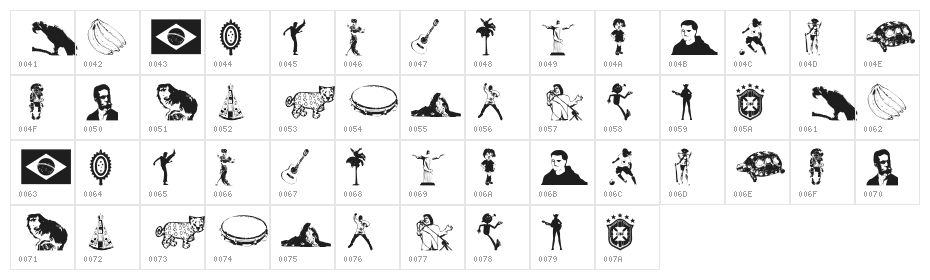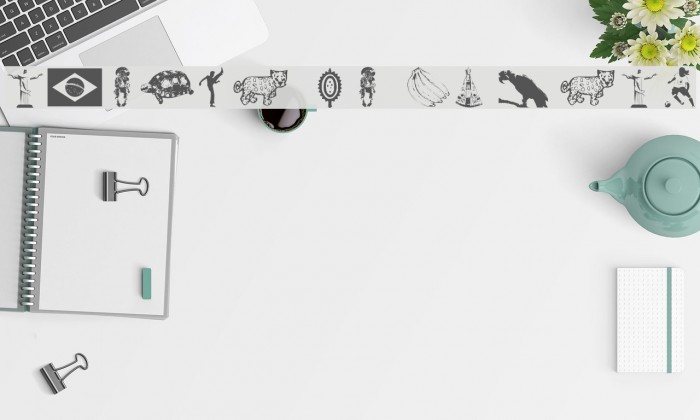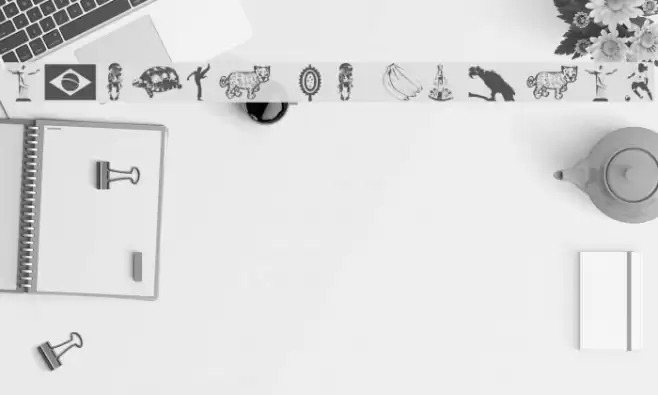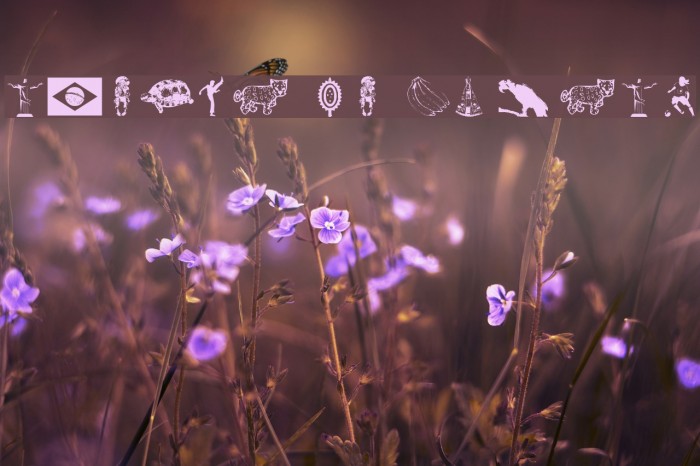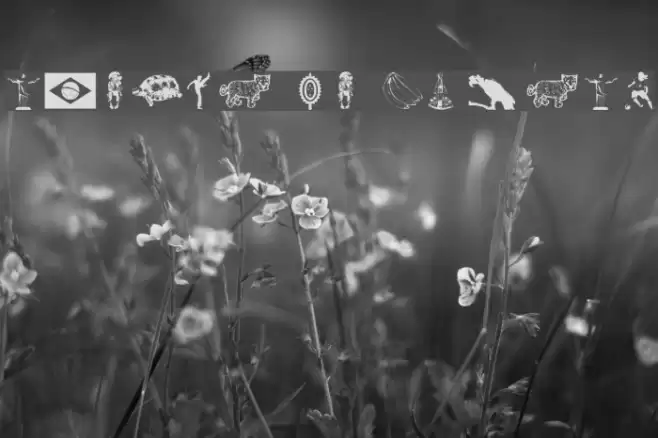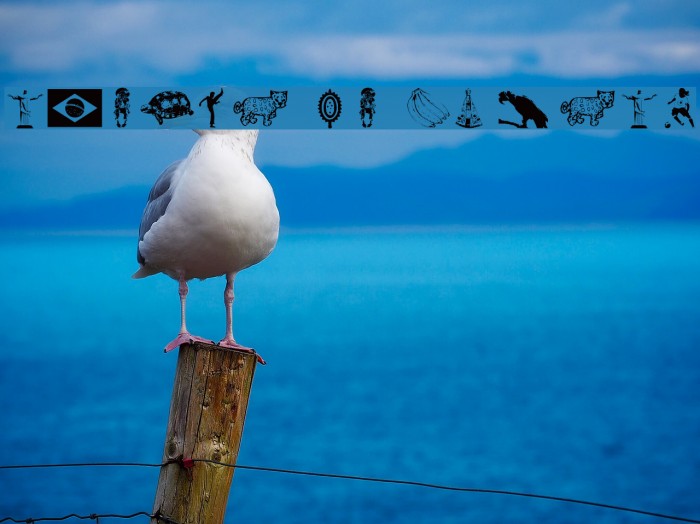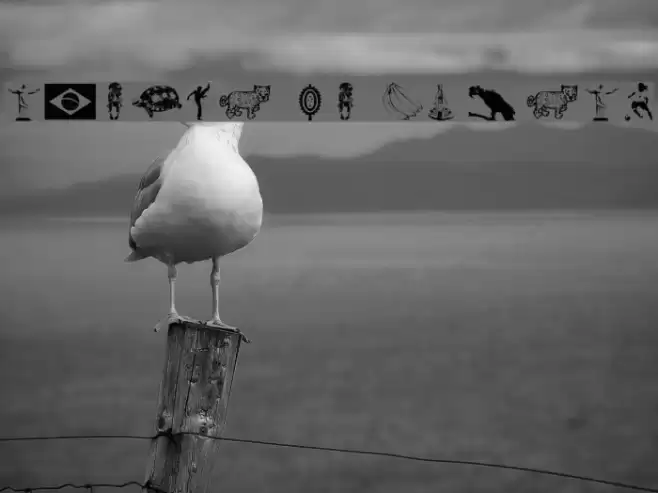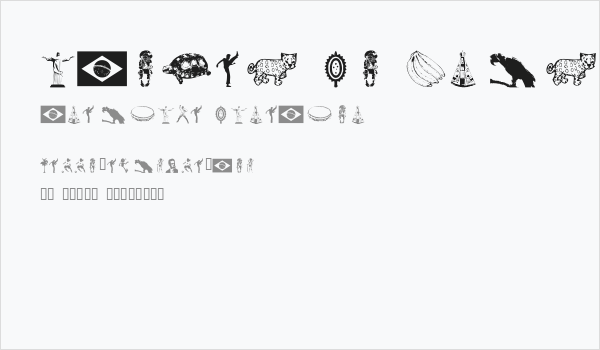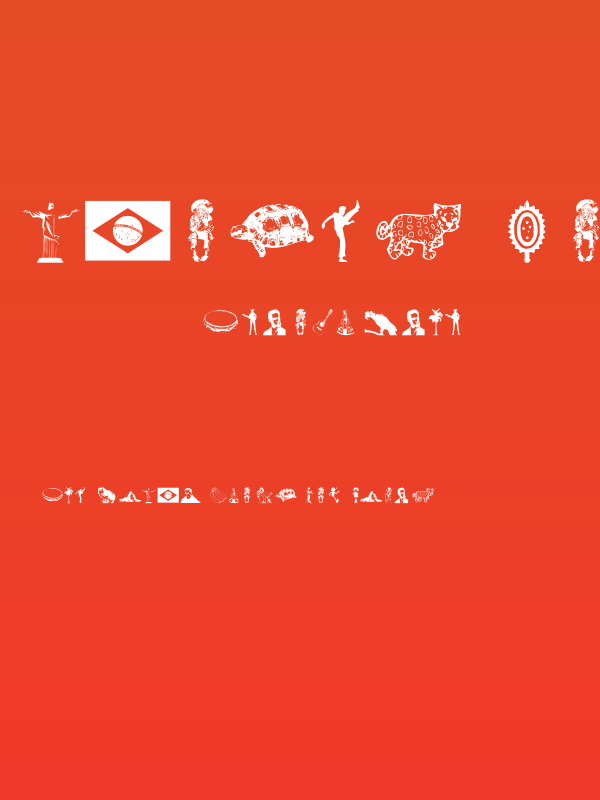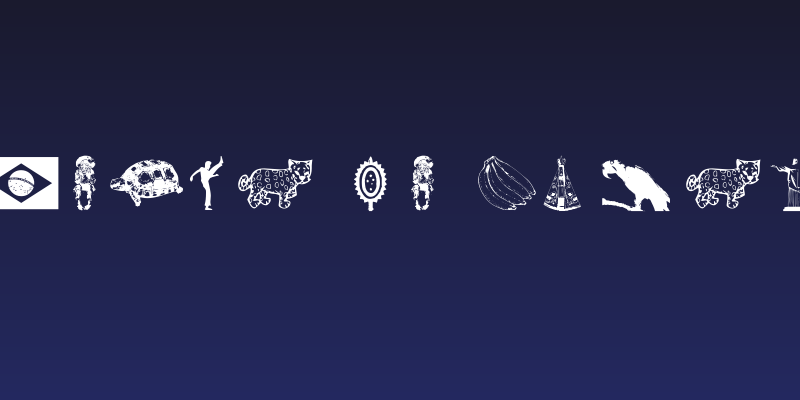
Icones do Brasil Font
Icones do Brasil Description
A decorative icon set featuring black and white illustrations of Brazilian cultural symbols, including animals, musical instruments, famous landmarks, people, and the national flag. Each glyph is a unique pictogram with a hand-drawn, slightly vintage style, emphasizing cultural diversity and national identity.
Overall StyleDecorative, Vintage, Cultural
Use CaseLogos, Posters, Infographics, Themed Graphics
Proposed ProjectsTourism branding, educational materials, cultural event posters, travel guides, themed merchandise, infographics.